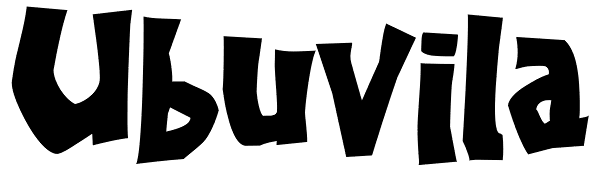
Ubuvila
African fonts are characterised by design considerations that differ from those of Europe and the Americas. At one extreme we have a relaxed and casual approach to life that values the quality of each moment in life far more than people do in the...